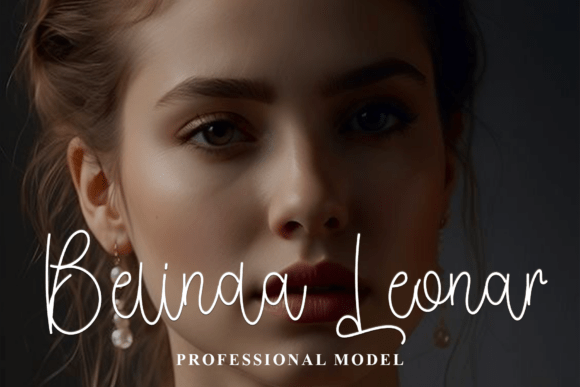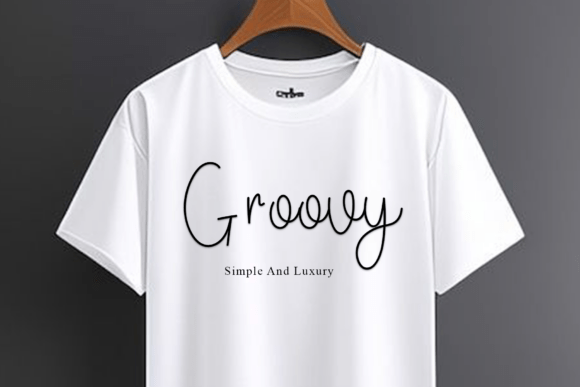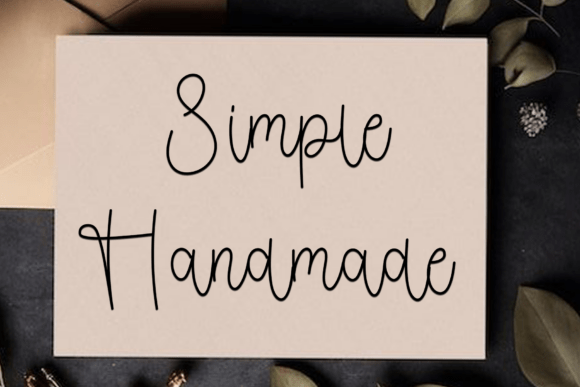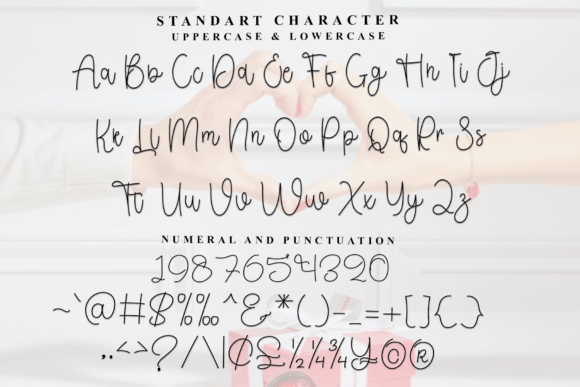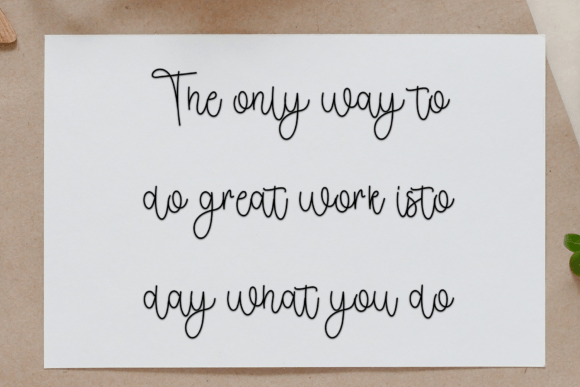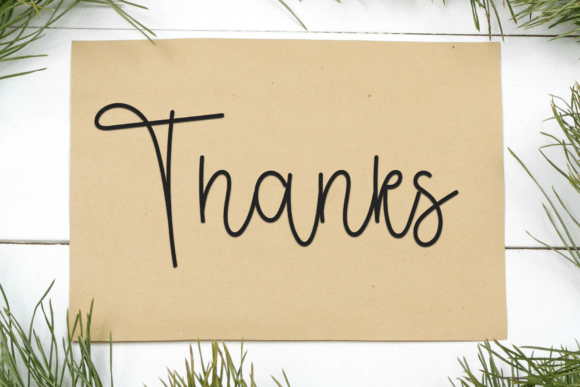
Babydoll Font: The Perfect Choice for Creative Projects
In the world of typography, fonts play a crucial role in making designs stand out. Among the numerous fonts available, the Babydoll font has gained significant attention for its unique and soft touch. This beautiful font is designed to add a special character to your creative projects, making it a popular choice among designers and crafters. In this article, we’ll explore the features and benefits of the Babydoll font, and why it’s an excellent addition to your design toolkit.
What is Babydoll Font?
Babydoll is a distinctive font that boasts a soft, eye-catching design. Its strokes are carefully crafted to give it a special character, making it both meaningful and versatile. This font is perfect for a wide range of creative projects, including design, crafts, and other artistic endeavors. With its unique charm, the Babydoll font is sure to capture the attention of your audience and leave a lasting impression.
Key Features of Babydoll Font
- Unique and Soft Design: The Babydoll font features a one-of-a-kind design that is both soft and eye-catching. Its distinctive strokes set it apart from other fonts, making it a great choice for designers looking to add a personal touch to their work.
- Versatile and Meaningful: This font is designed to be versatile and meaningful, making it suitable for a wide range of creative projects. Whether you’re working on a design, craft, or artistic project, the Babydoll font is sure to enhance your work.
- Variety of Characters: The Babydoll font comes with a range of characters, allowing you to experiment with different styles and designs. This feature makes it an excellent choice for designers who want to add a personal touch to their work.
Benefits of Using Babydoll Font
The Babydoll font offers several benefits that make it an excellent choice for designers and crafters. Some of the key benefits include:
- Enhance Your Designs: The Babydoll font is designed to add a special touch to your designs, making them more appealing to your audience. Its unique charm and soft design make it perfect for creating visually stunning designs.
- Suitable for Various Projects: This font is versatile and can be used across different creative projects, including design, crafts, and artistic endeavors. Whether you’re working on a logo, brochure, or social media post, the Babydoll font is sure to enhance your work.
Who Can Benefit from Babydoll Font?
The Babydoll font is an excellent choice for designers, crafters, and artists who want to add a personal touch to their work. Some of the professionals who can benefit from this font include:
- Graphic Designers: Graphic designers can use the Babydoll font to create visually stunning designs, including logos, brochures, and social media posts.
- Crafters: Crafters can use this font to add a personal touch to their crafts, including handmade cards, gift tags, and other DIY projects.
- Artists: Artists can use the Babydoll font to add a unique touch to their artwork, including illustrations, paintings, and digital art.
In conclusion, the Babydoll font is a beautiful and eye-catching font that is perfect for creative projects. Its unique and soft design, versatility, and compatibility make it an excellent addition to your design toolkit. Whether you’re a designer, crafter, or artist, the Babydoll font is sure to enhance your work and make it more appealing to your audience. With its range of characters and wide range of applications, this font is an excellent choice for anyone looking to add a personal touch to their creative projects.